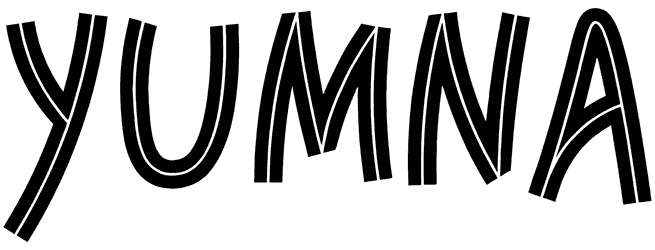
Yumna Font
A modern cartoon font would be an excellent choice for your creative, cute design, which should appeal to a wide audience. Yumna font, with its playful characters, has the potential to do it and give a cheerful vibe to your text. Use this inline font for your kids’ poster or any other sweet project that you want, and make them unique.